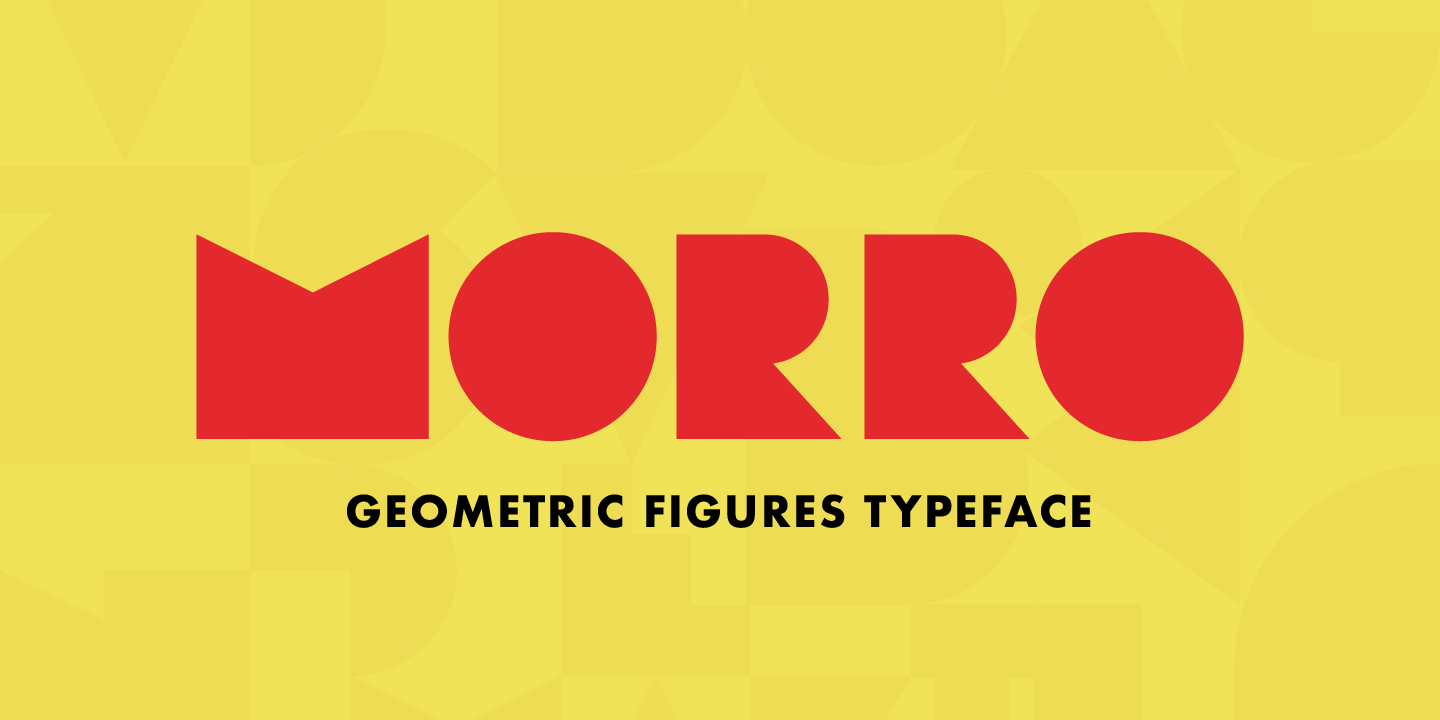
Morro Font is perfect for mountaineering expedition companies, rugged outdoor gear branding, cliffside restaurant communications, adventure tourism marketing, rock climbing gym signage, highland brewery materials, extreme sports event promotions, and wilderness survival training campaigns. This bold typeface excels in applications where rocky terrain, mountain strength, and cliff-side adventure are essential for connecting with audiences who appreciate the raw power of mountainous landscapes and the exhilarating challenge of conquering vertical heights.
What makes Morro Font so exciting is its commanding embodiment of mountain strength and rocky resilience that perfectly captures the essence of towering cliffs and the formidable beauty of stone formations that have withstood millennia of weathering. The font features solid, boulder-like letterforms with geological characteristics that evoke granite faces and limestone cliffs. Its powerful character conveys endurance, stability, and natural authority - essential qualities for brands serving outdoor enthusiasts, adventure seekers, and audiences who appreciate mountain climbing, rocky terrain exploration, and the inspiring majesty of cliff formations and mountainous wilderness that test human determination and reward courage with breathtaking views.
The Morro Font family includes multiple solid weights and mountain-inspired variations that enhance its geological appeal. Some versions feature weathered textures and stone-carved elements that simulate natural rock erosion and mountain weathering, while others provide streamlined variants that maintain the font's powerful character with enhanced readability for professional outdoor adventure applications and commercial mountain tourism communications.
Whether you're creating branding for mountain adventure services, designing materials for outdoor equipment companies, or developing marketing campaigns for cliff-side experiences, Morro Font Free Download provides the rocky authority your project demands. The font's mountainous character makes it particularly effective for brands targeting adventure enthusiasts who appreciate extreme terrain, rock climbing challenges, and the powerful beauty of mountain landscapes and cliff formations.
Conquer new heights with Morro Font and rock solid brand communications with typography that embodies the commanding strength of mountain cliffs and rocky terrain mastery.